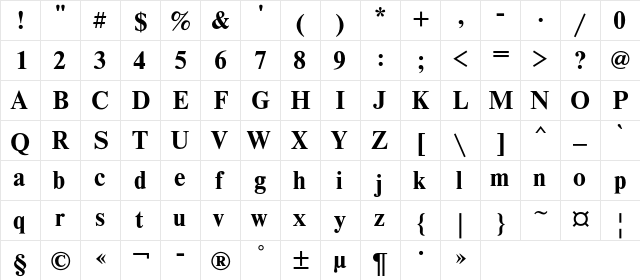
NewtonC Bold Font Preview
NewtonC Bold
Design Context for NewtonC Typeface
NewtonC takes a measured approach to typography — its balanced proportions and neutral character make it a reliable workhorse for both digital and print work. Its bold stroke weight gives it real presence on the page.